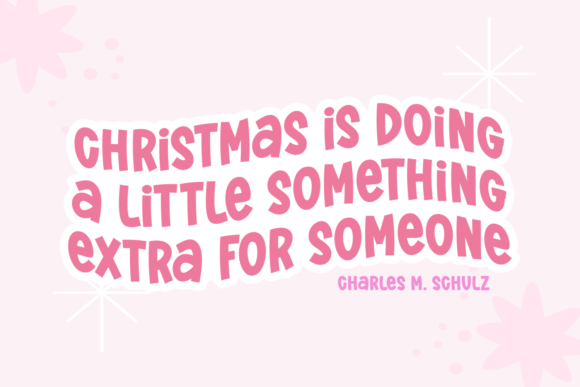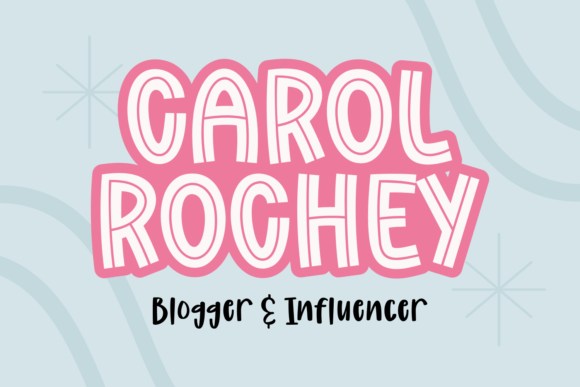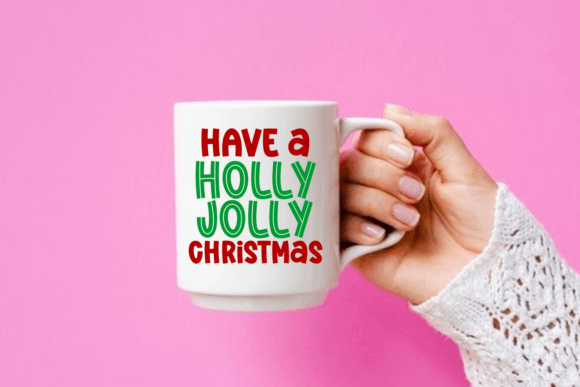
Introduction to Skylight Candy Font
Skylight Candy is a whimsical and vibrant font that adds a touch of playful charm to any project.
Perfect for projects aimed at capturing a youthful and lighthearted spirit, Skylight Candy brings a delightful sweetness to your designs Let your text dance with joy as Skylight Candy infuses a sugary playfulness into your visual creations.
Key Features of Skylight Candy Font
Why Choose Skylight Candy Font?
Skylight Candy Font offers exceptional quality and versatility, making it a valuable addition to your design toolkit. Whether you’re creating for personal projects or commercial use, Skylight Candy Font delivers professional results.